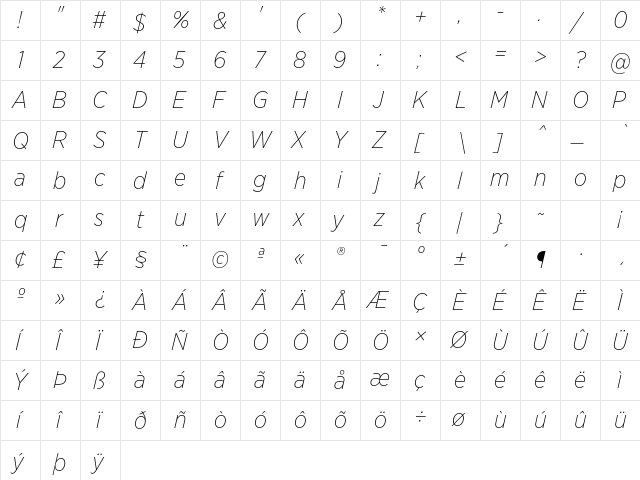
Gotham Narrow Extra Light Italic Font Preview
| Style | Extra Light Italic |
| Foundry | Hoefler & Frere-Jones |
| Designer | Hoefler & Frere-Jones |
Design Context for Gotham Narrow Typeface
Gotham Narrow offers clean, dependable letterforms without strong stylistic allegiance, making it a practical choice for designers who need flexibility. The slanted form adds forward momentum and visual energy. The delicate stroke weight brings airiness and refinement to layouts. The condensed width makes it efficient for tight spaces without sacrificing legibility.
Pro Tip: Use Gotham Narrow for emphasis, pull quotes, and subheadings where its slanted energy can add rhythm to the layout.